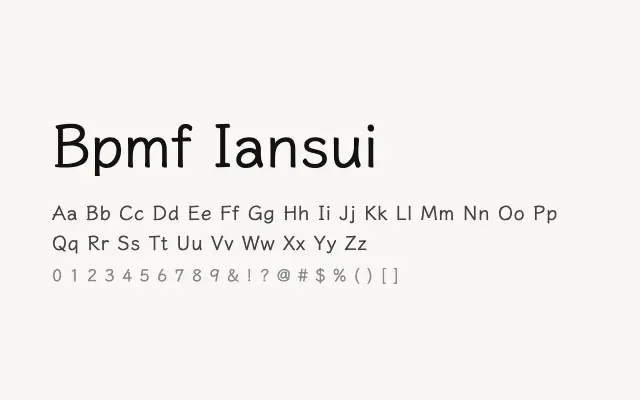
Bpmf Iansui
A handwritten-style Traditional Chinese font with Bopomofo support, bringing warmth and informality to CJK typography.
Bpmf Iansui mimics the natural rhythm and slight irregularity of handwritten Chinese characters, making it appealing for children's educational materials, casual publishing, and branding that wants a personal, approachable feel. Its Bopomofo annotation capability keeps it functional within Taiwanese educational contexts where phonetic guidance is required. The script character distinguishes it clearly from utilitarian CJK system fonts, though this limits its use in formal or long-form text settings.
Bpmf Iansui is a Traditional Chinese script-style typeface that emulates the informal, handwritten quality of everyday Chinese writing while retaining Bopomofo phonetic annotation support. It presents a warmer, more casual alternative to the structured sans-serif of Bpmf Huninn.